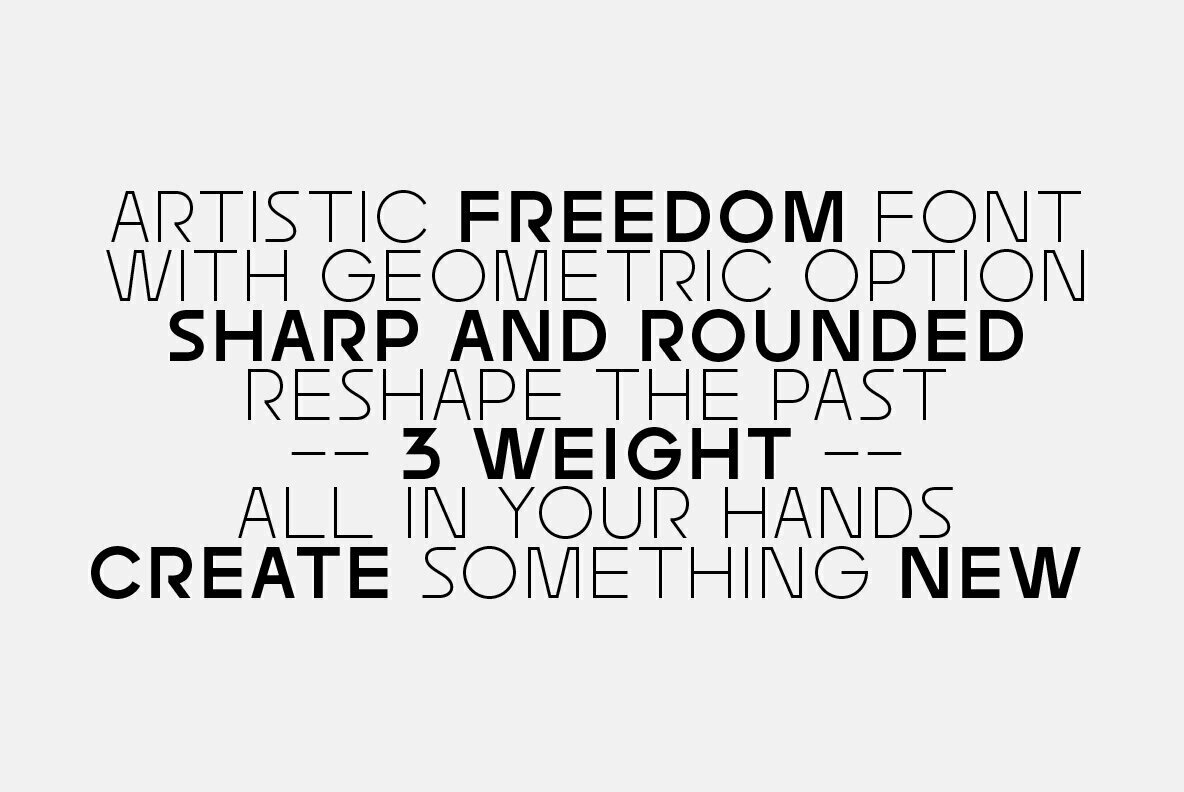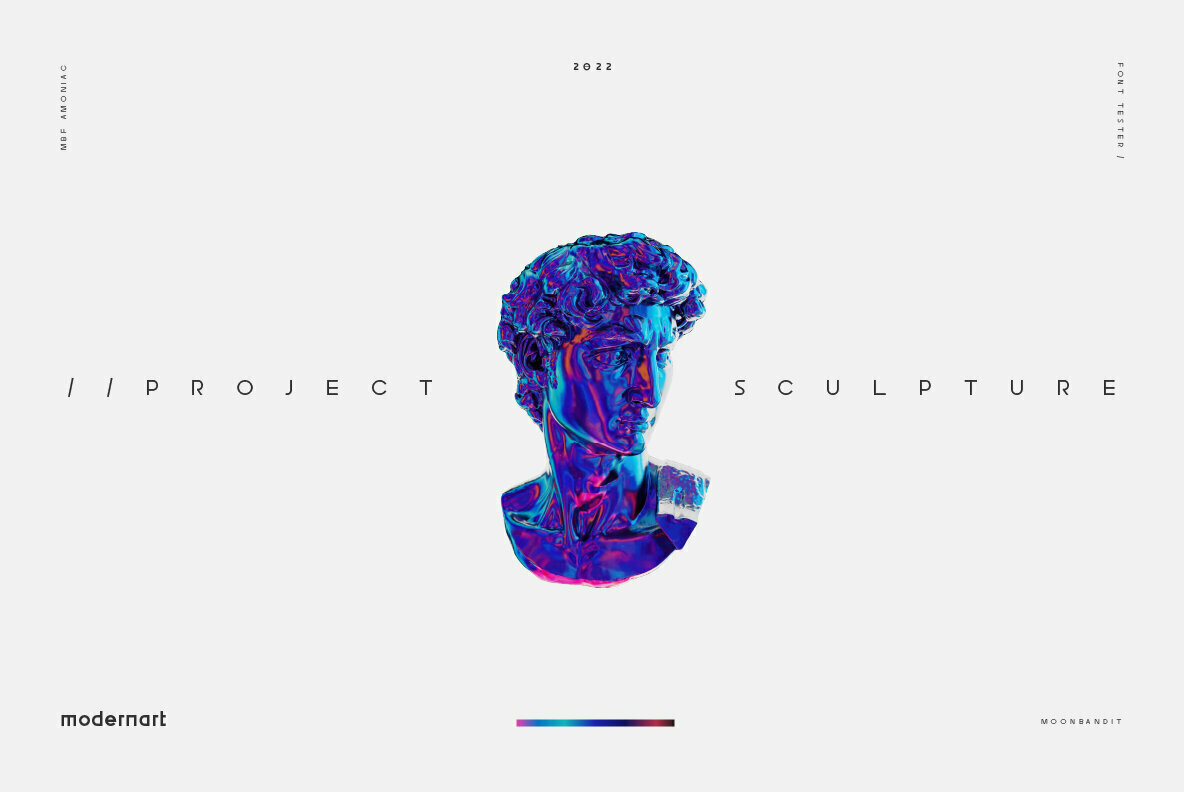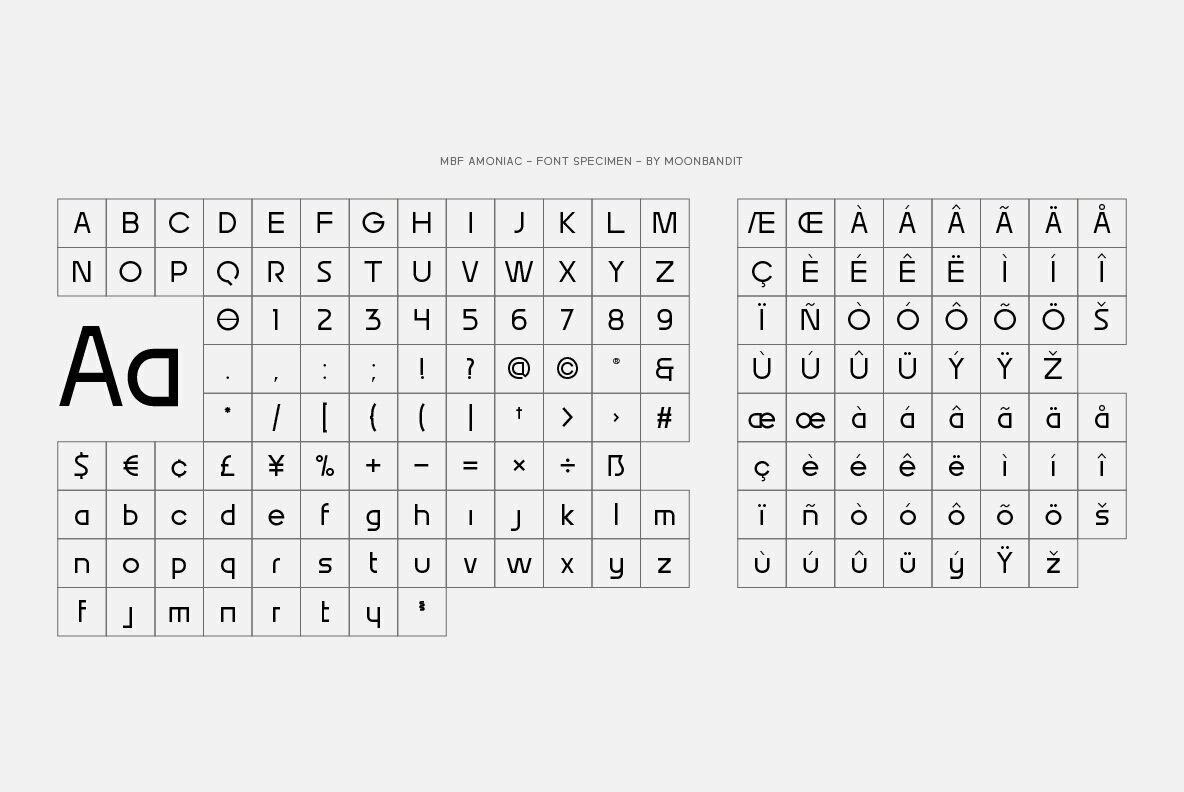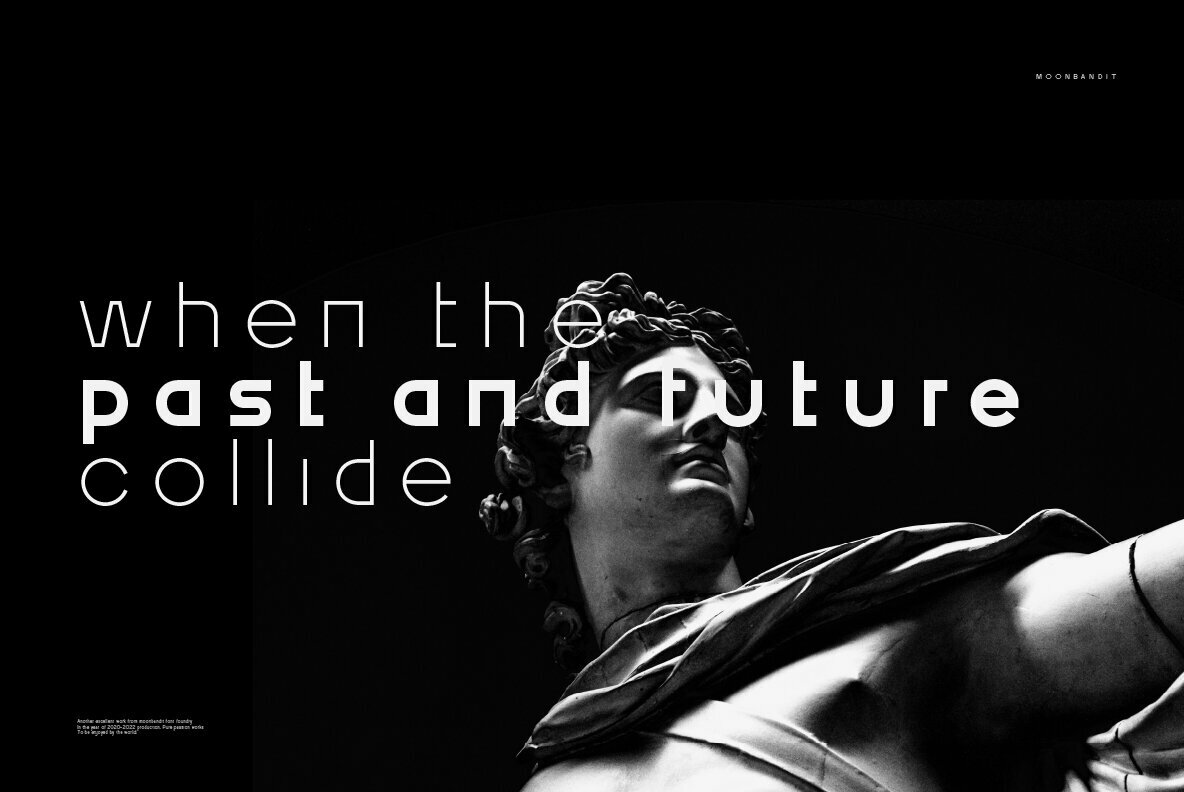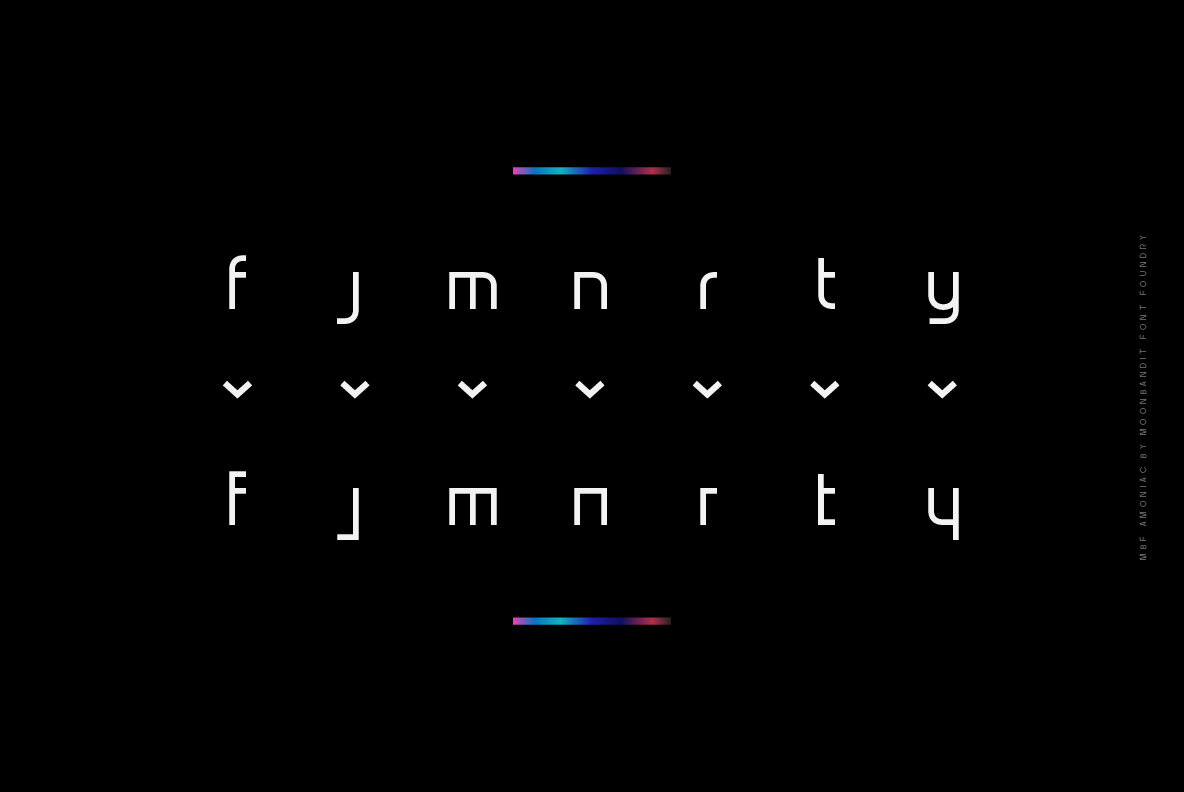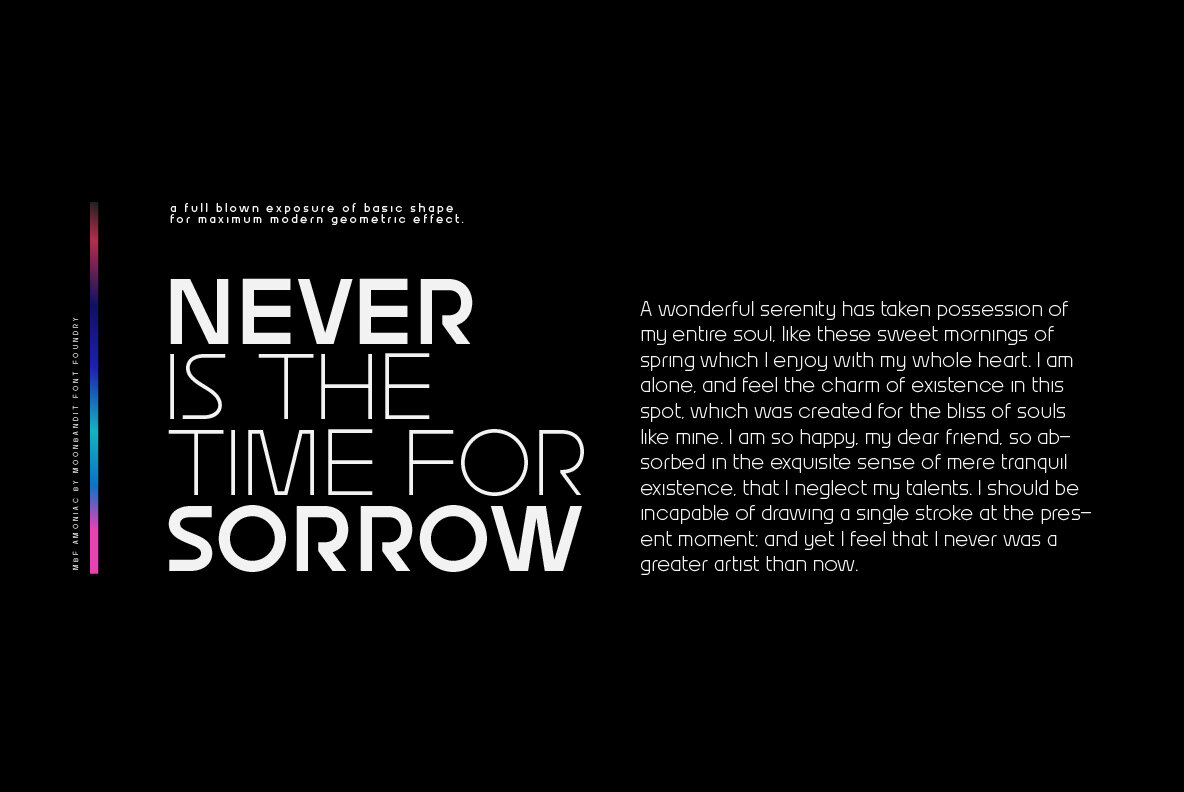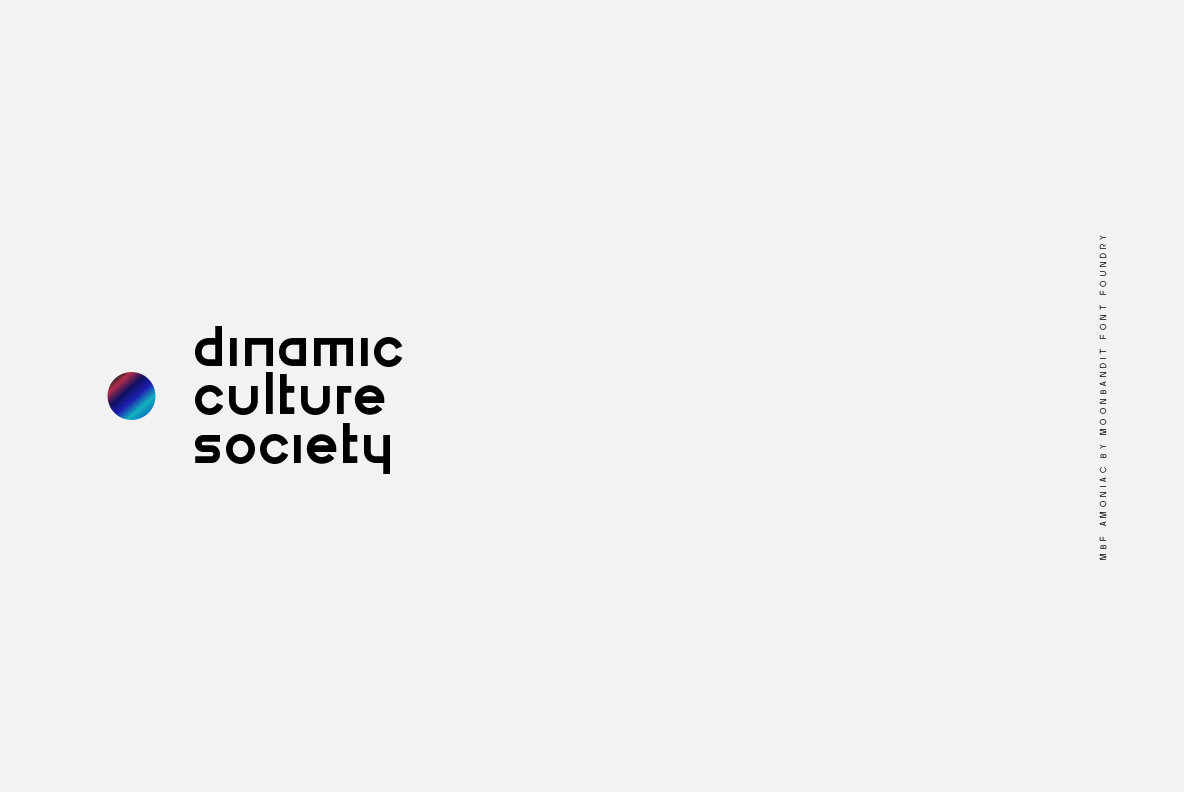
MBF Amoniac Font
Amoniac is a geometric modern minimalist sans serif display font. A fusion of artistic old world and the future, creating a unique contrast of new style. This typeface consist of 3 weight with optional alternate glyph. Pick your own style, rounded or sharp. perfect usage includes logo, poster, display, headline, t-shirt design and many more.